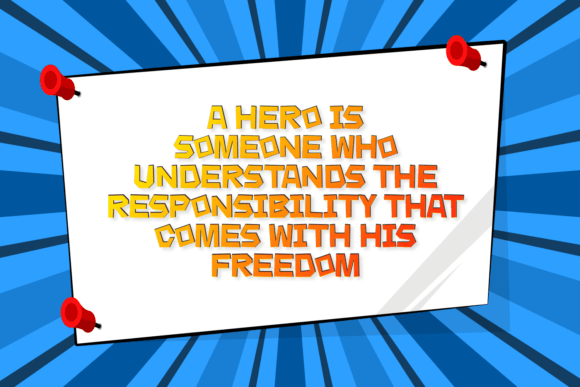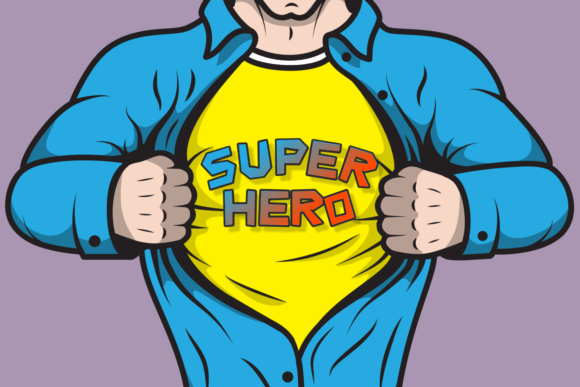
Super Strong Font
Introducing a new dynamic in the world of typography: Super Strong Display Fonts. This highly versatile collection includes a delightful blend of Cartoon and Children fonts, perfect for bringing joy and creativity to any project. These fonts are also a perfect match for crafting needs, as proven by the Craft, Cutting, and Cricut Fonts.
Packed with Cute and Elegant Fonts, this typography masterpiece allows you to impart a sense of charm and sophistication in your designs. Whether you need Cover, Fancy, or Fun Fonts, this assortment has got you covered. Putting together a greeting card or designing a T-shirt? You’re in for a treat!
Unleash the creative designer in you with our Unique Kids Fonts, a seamless fit for logos, logotype, and a fresh addition to the 7ntypes family. For the love-struck, our specialized Love Quotes Fonts infuse romance effortlessly into any design.
The collection also holds Magazine, Quote, and Back to School Fonts, a perfect complement for any editorial, inspirational, or educational project. Incorporating multilingual support, this font will allow international charm to grace your designs.
Designed to meet a variety of needs, the Poster, Product, and School Fonts bring a distinct look to any purpose. The Seasonal Fonts in the collection make it easy for you to tailor your designs to any time of the year, while the Silhouette Fonts add a touch of mystery and intrigue.
To top it all off, the Stylish Fonts collection imparts a bold and dashing aesthetic, ensuring any text will stand out. With the Super Strong Display Fonts in your design toolkit, you’ll be equipped to create head-turning, impactful designs for any event, product, or message.